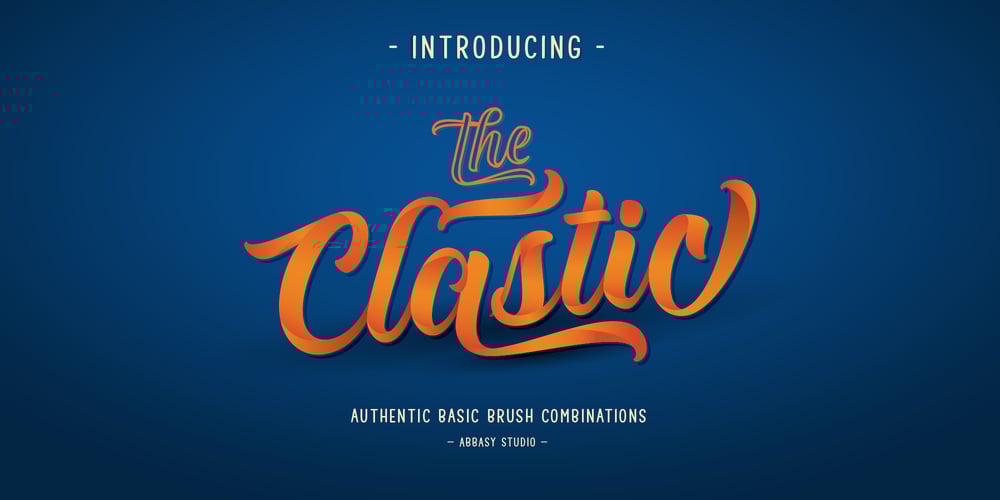
The Clastic Font Family was designed by Angga Kristiandri and published by Abbasy Studio. The Clastic contains 4 styles and family package options. Proudly presents The Clastic Font Family with 2 different style Script and Sans. The Script also has combination layer style with inner shadow and drop shadow. The Characters include over 650++, allowing each character to be combined. These two cool fonts would be perfect to combine in your design. It will be great for Logotypes, Posters, Digital Lettering Arts, Clean design, Branding Design, Sign, and many more application.Features Contextual Alternates Stylistic Alternates (up to 12 style in some letters) Ligatures Initial & Terminal (also comes with alternate initial and terminal glyphs) Thank You very much, I hope you enjoy this fonts !